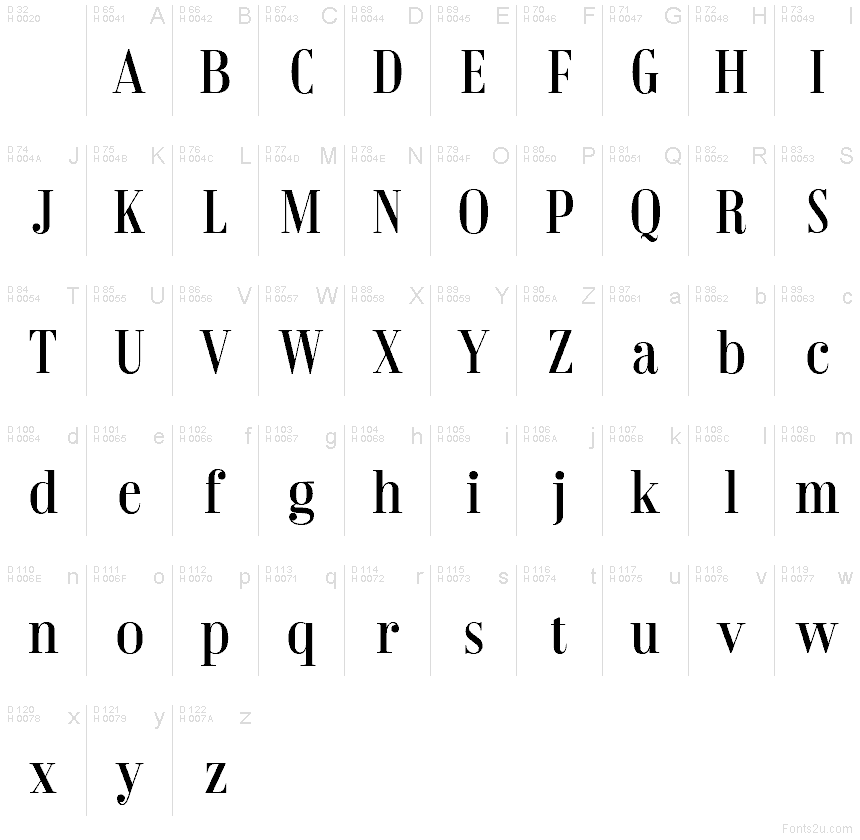
Roneys Regular Demo
Roneys font by Craft Supply Co. is a sleek, modern serif font with elegant curves and refined style. It demands attention with its classic sophistication achieved using precise lines and sharp edges that form professional-looking lettering. Condensed proportions make sure the space left between letters makes the text easy to understand while still maintaining a straightforward appearance.